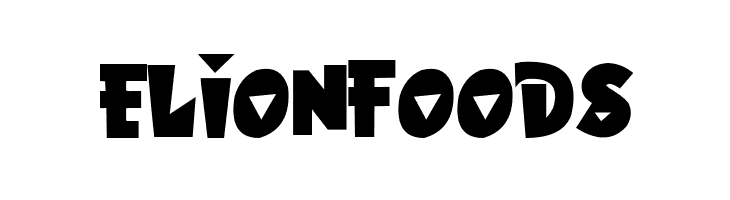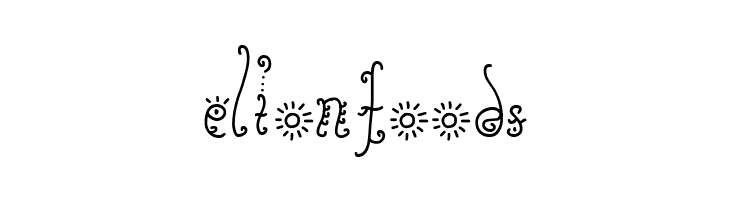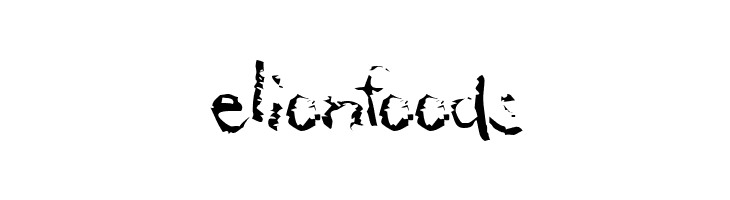
( Fonts by Dennis Ludlow - Sharkshock Productions )
A bold, angular font with a playful and rebellious style.
( Fonts by http://perso.calixo.net/~uzim/ )
A whimsical, decorative font with playful, curly letterforms and dot embellishments.
( Fonts by www.misprintedtype.com )
A distressed, grungy font with a bold and rugged appearance.
( Fonts by Emerald City Fontwerks )
An elegant and decorative font with diamond embellishments and unique numeral styling.
( Fonts by Utopiafonts )
A distressed, grungy font with jagged edges and an artistic, chaotic style.